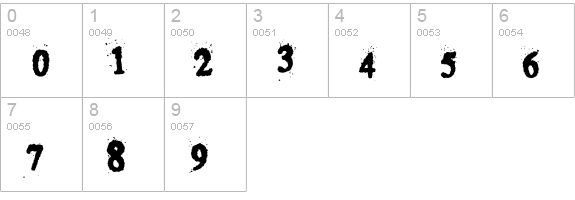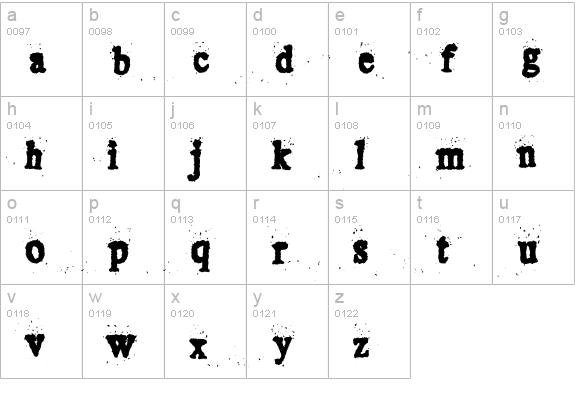
CrustiEst Font Details
Introducing CrustiEst font, a whimsical and playful typeface that is sure to add a touch of fun to your design projects. This unique font features quirky curves and stylish flourishes that make it stand out from the crowd. CrustiEst font is perfect for branding, packaging, invitations, and more. The best part? CrustiEst font is completely free to download at FontsMarket.com. So why wait? Add a dose of creativity to your designs with this charming and eye-catching font today!